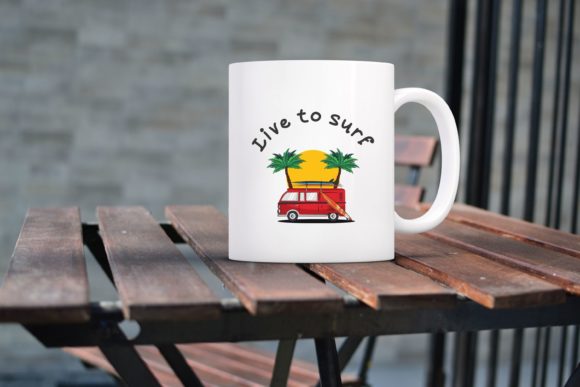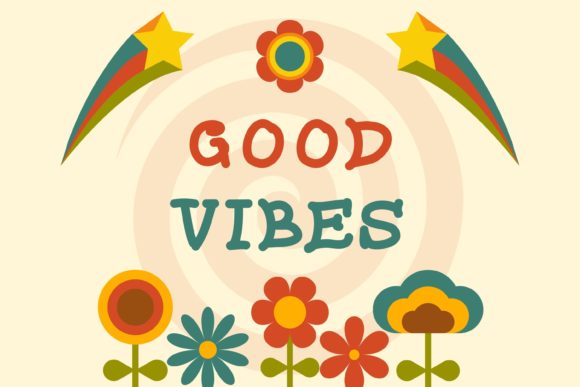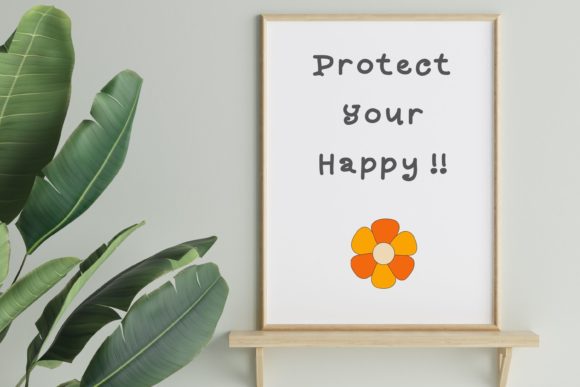
About Hailey Font
Hailey is a charming and simple handwritten font that brings a cute and original look to your creative projects. With its playful style, this font appeals to a wide range of crafty ideas, making it suitable for applications such as letterheads, titles, and stationery.
The simplicity of Hailey contributes to its versatility, allowing it to adapt to various design contexts. Whether you’re working on personal or professional projects, this font adds a touch of charm and character to your text.
In letterheads, Hailey injects a dose of playfulness, creating a friendly and approachable vibe. The font’s simple handwritten style adds a personal touch, making it ideal for conveying a sense of authenticity.
For titles, Hailey brings a cute and original flair that captures attention and adds visual interest. The handwritten charm of the font adds a touch of warmth, making your titles stand out with a unique and inviting appeal.
In stationery, Hailey complements the overall design, creating a cohesive and delightful aesthetic. Whether used for notes, cards, or other stationery items, this font adds a crafty and handmade feel that resonates with creativity.
In summary, Hailey is more than just a font; it’s a cute and simple design tool that enhances the character of your projects. Whether applied to letterheads, titles, or stationery, Hailey brings a playful and original look that appeals to a wide range of crafty ideas, adding a touch of charm to your creative endeavors.